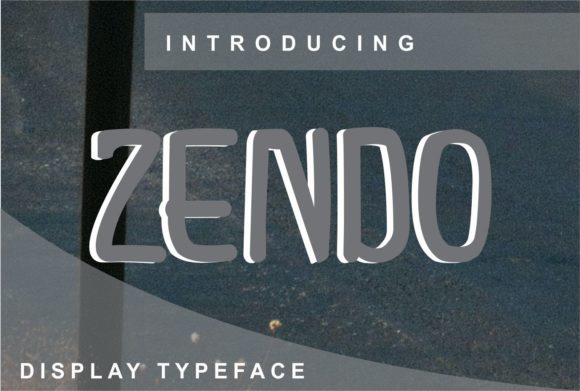
**Introducing Zendo: The Font That Will Elevate Your Designs**
**Are you looking for a font that is both stylish and functional?** Look no further than Zendo, the latest display font from Letteria_studio. This eye-catching font is perfect for game rules, logos, branding, and more.
**With its clean lines and modern aesthetic, Zendo is sure to make your designs stand out.** It's also incredibly versatile, so you can use it for a wide variety of projects.
* **It's unique and stylish**. Zendo is not your average font. It has a cool, trendy look that will make your designs stand out from the crowd.
* **It's versatile**. Zendo can be used for a wide variety of projects, including game rules, logos, branding, and more.